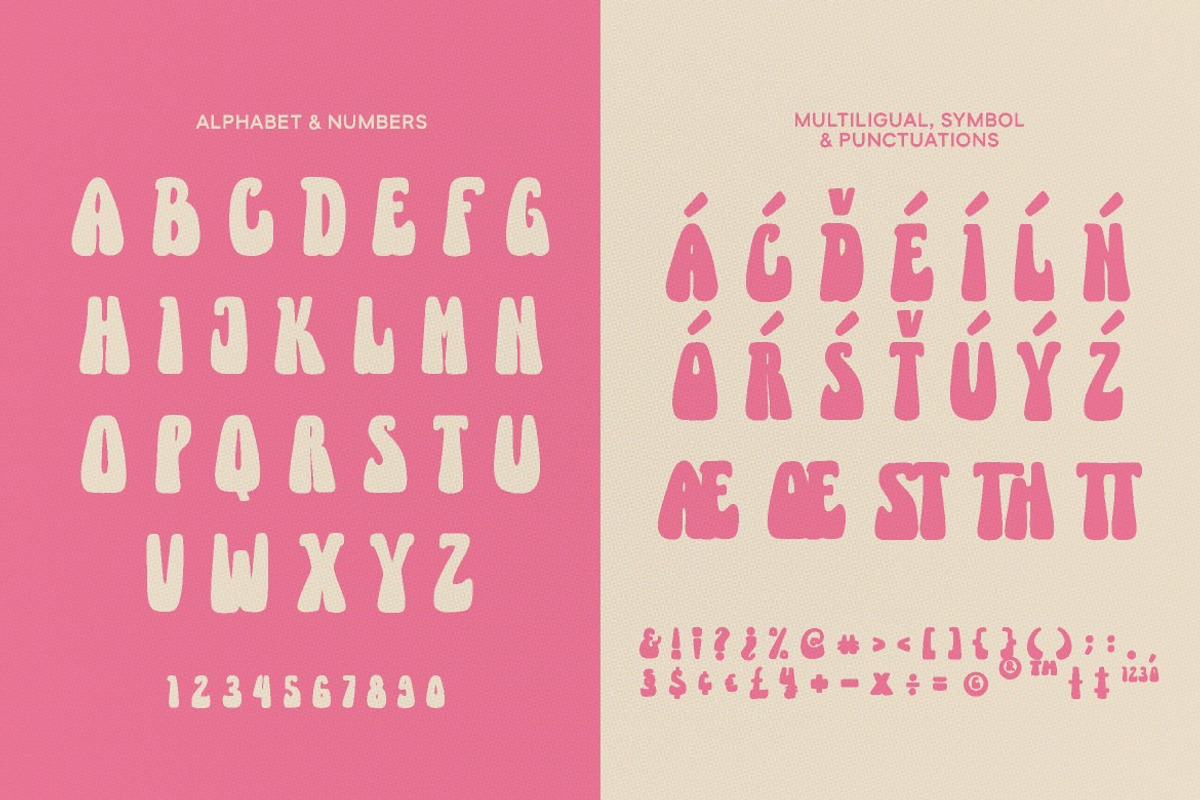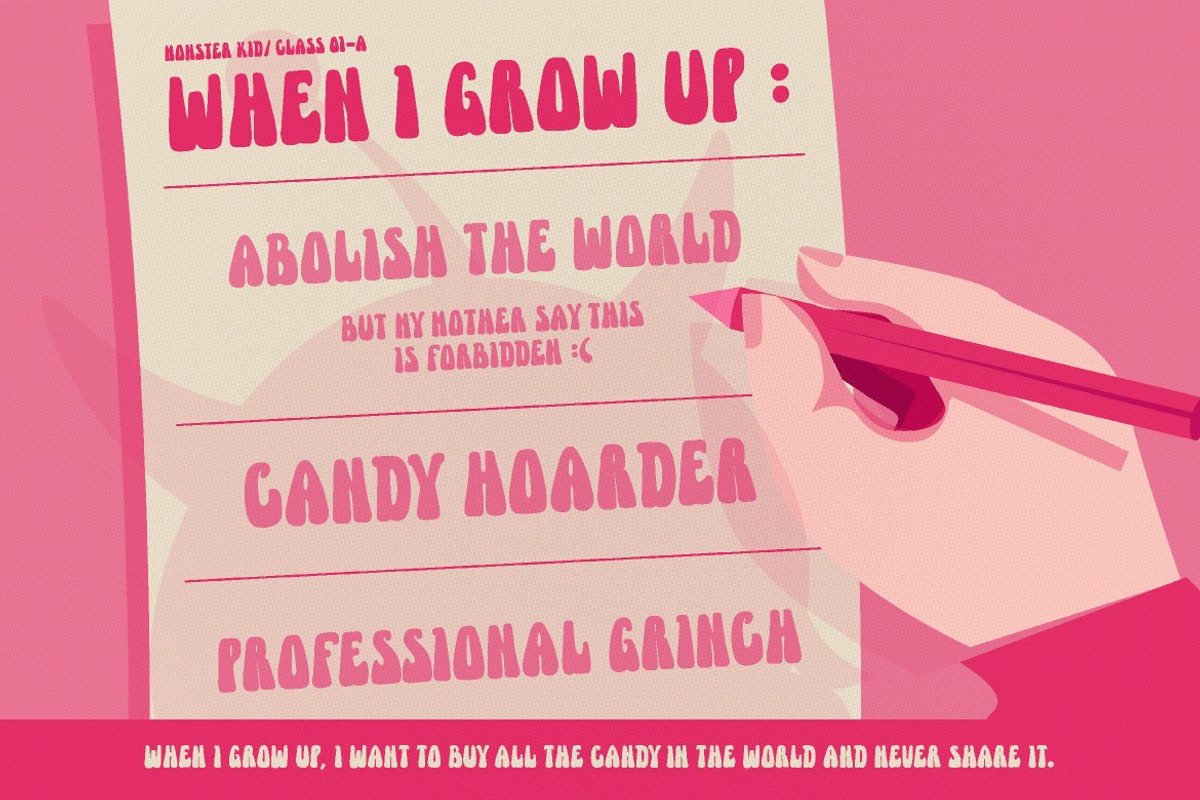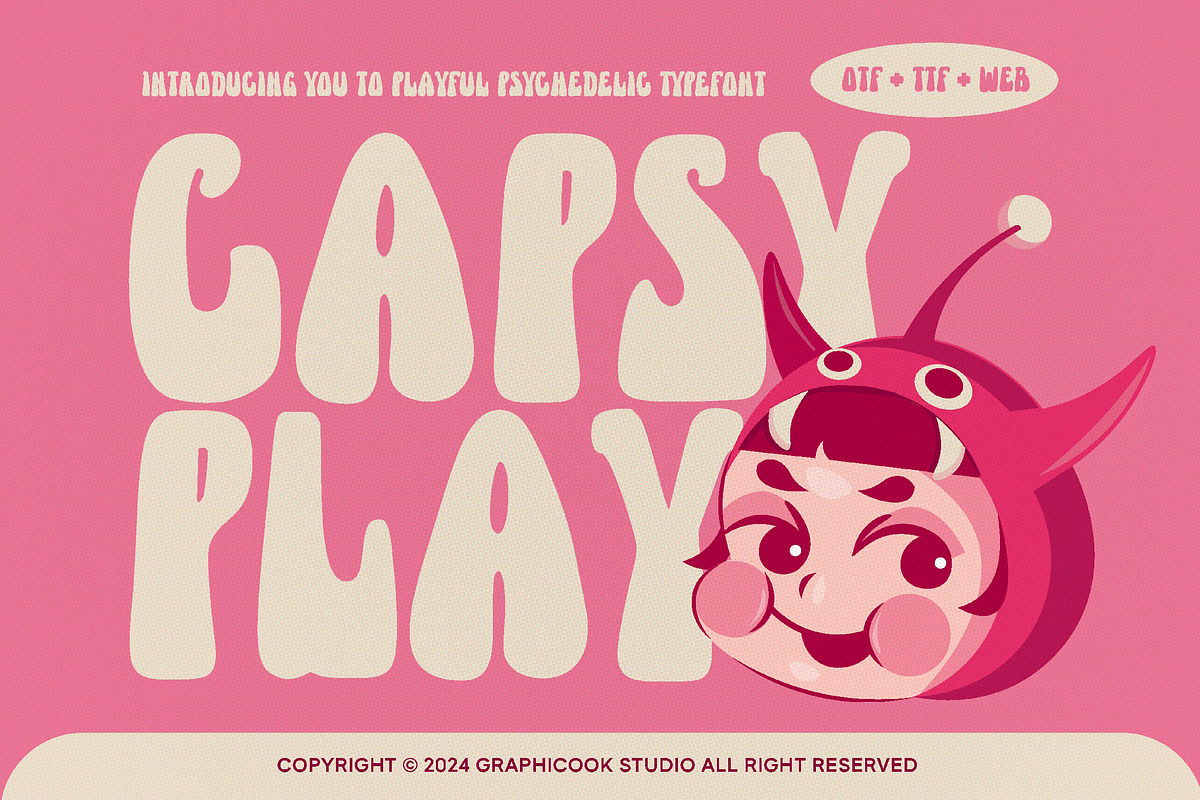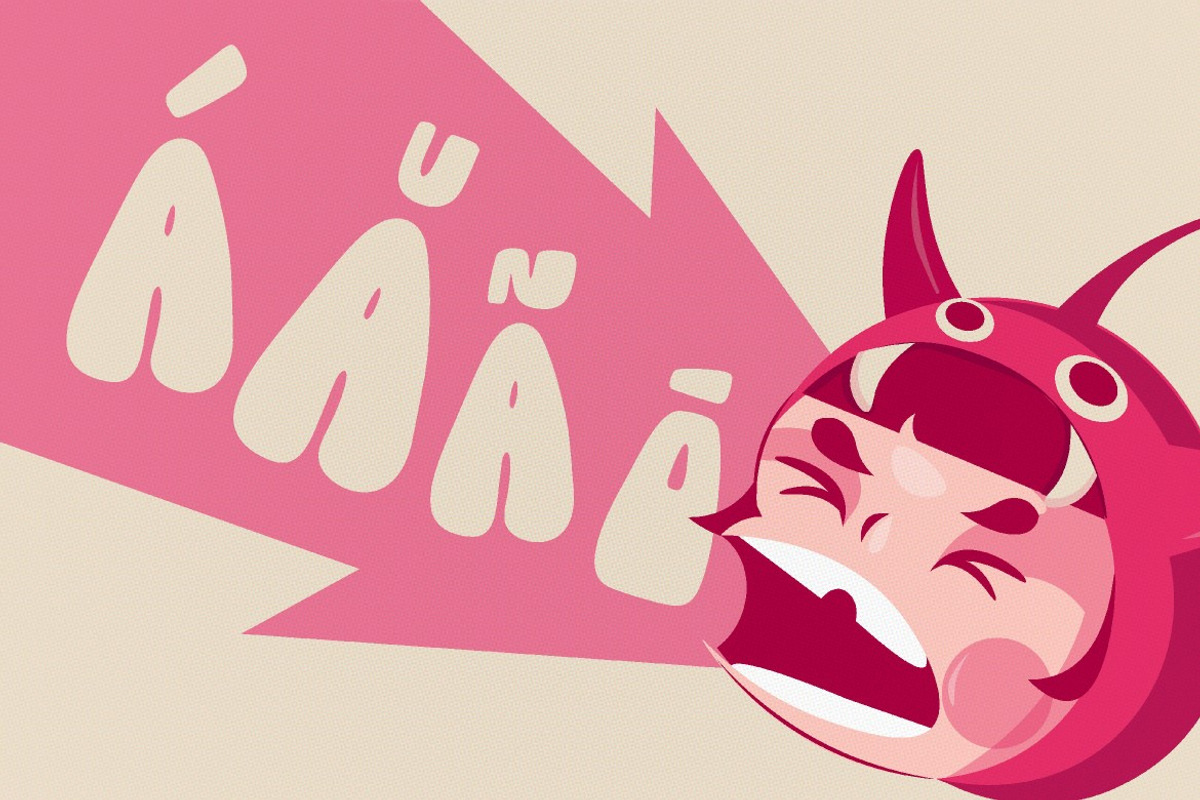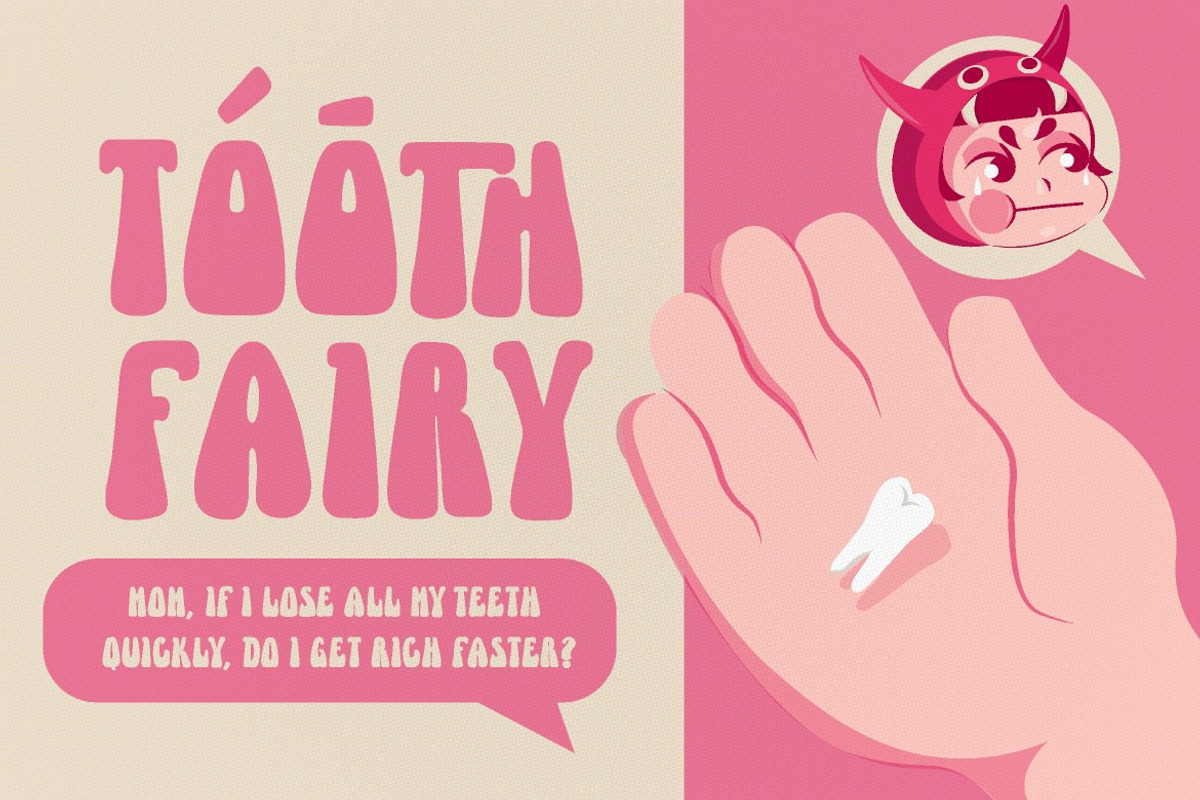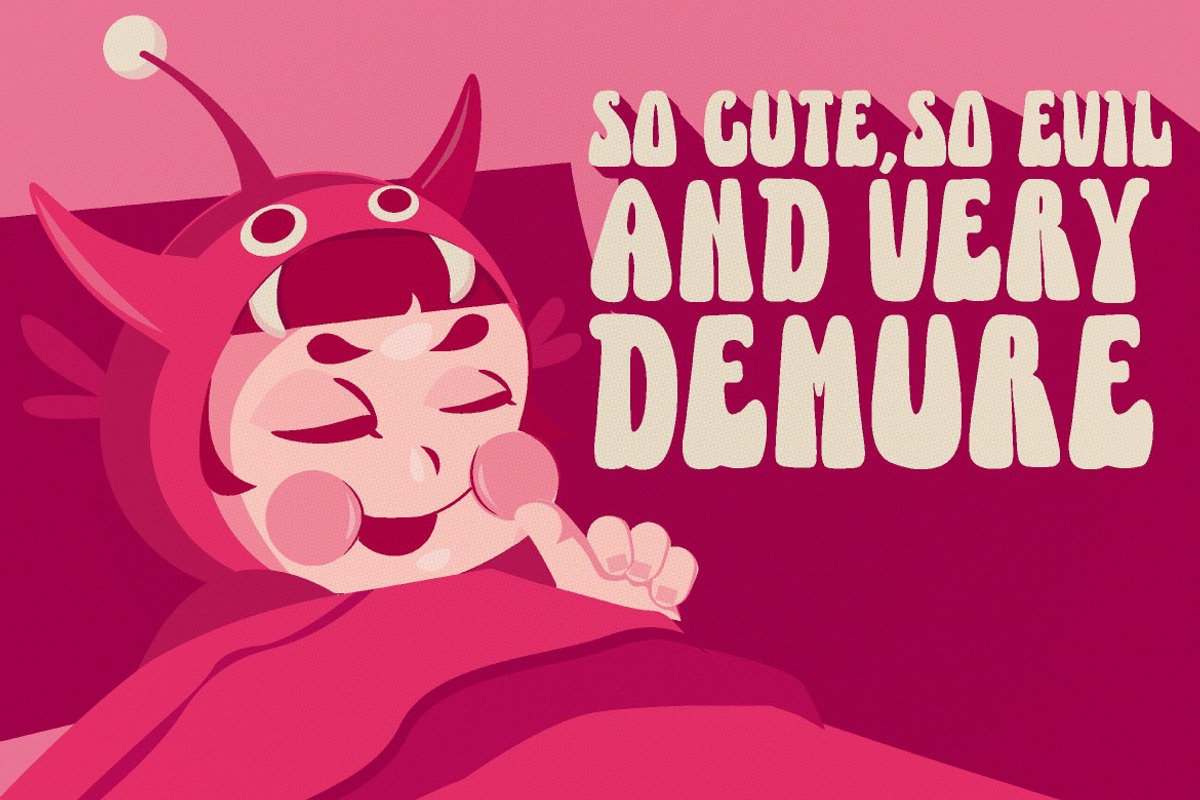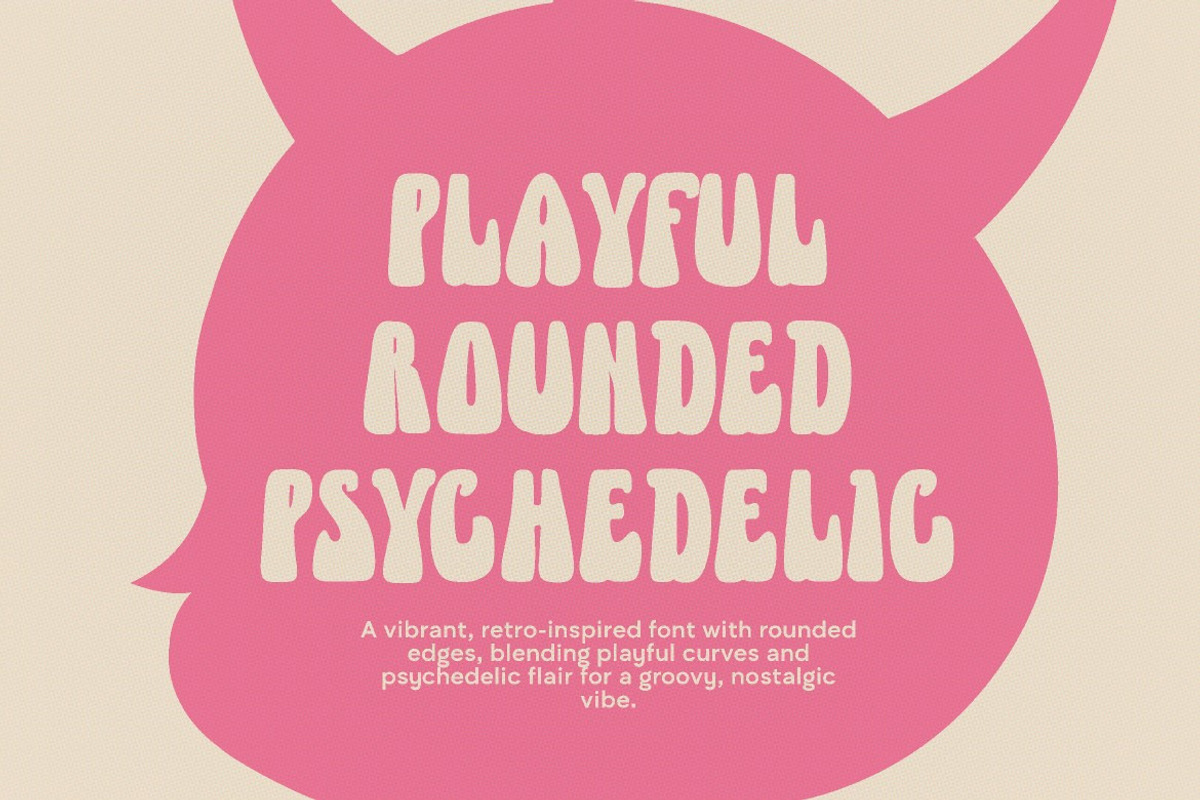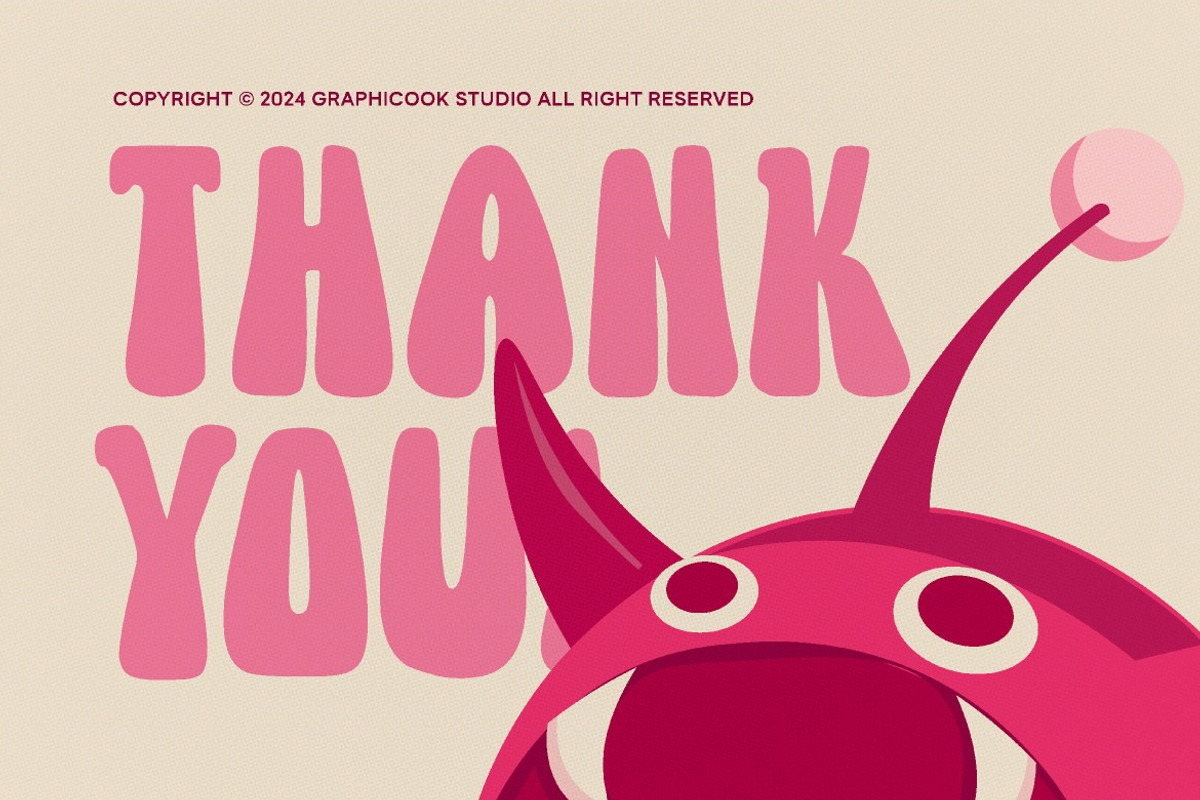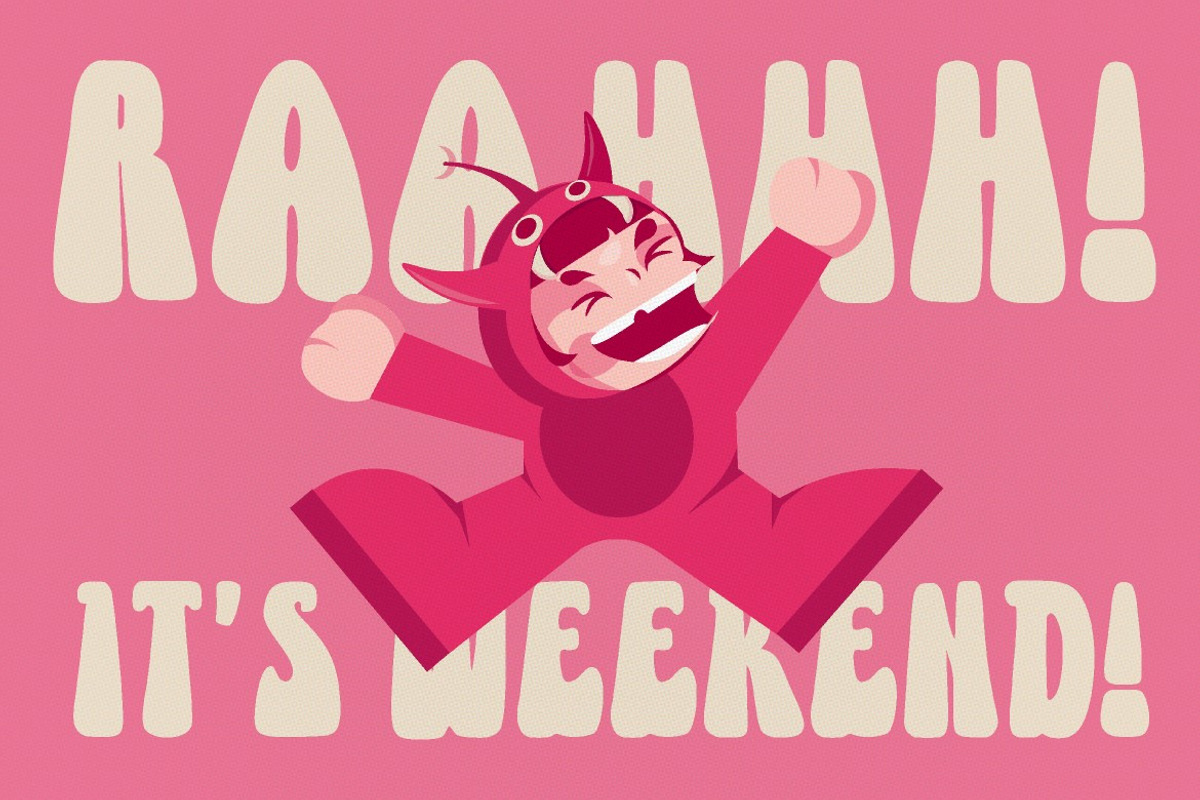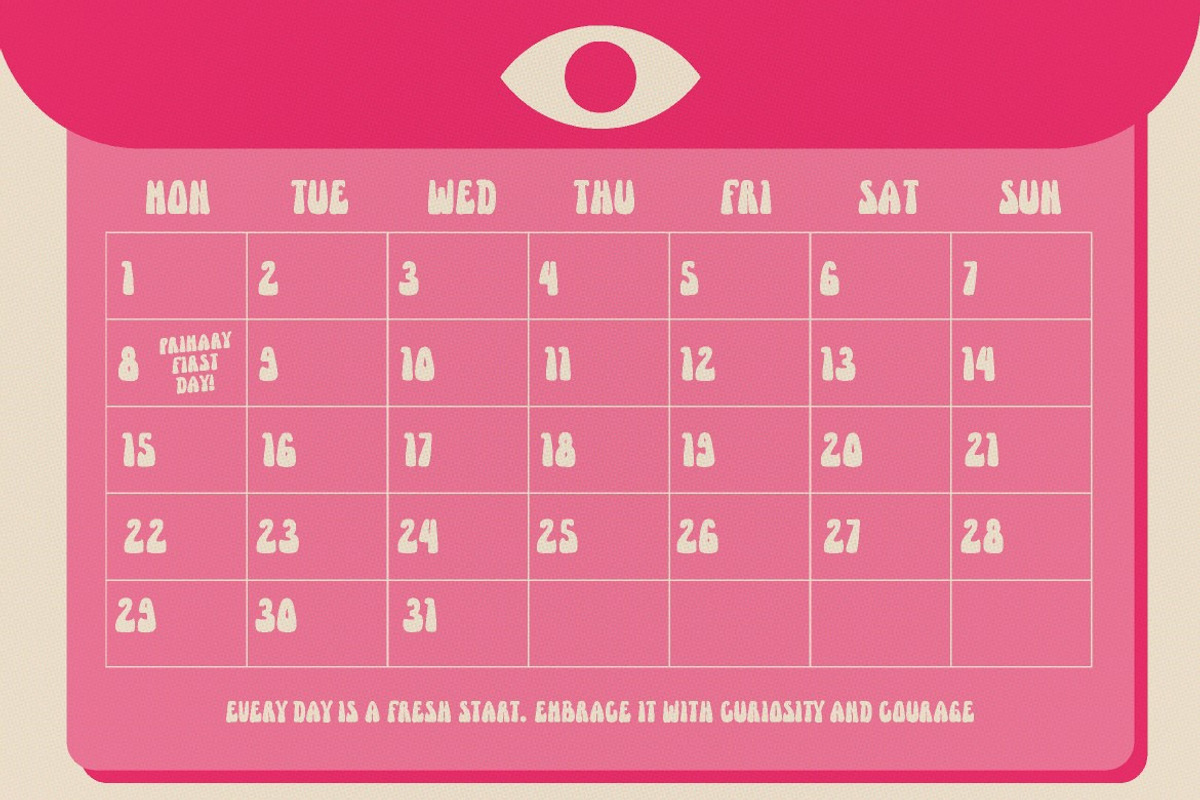
Capsyplay
Capsyplay got its inspiration from Psychedelic style. The font has unique letter shapes, so it's suitable for those that want to create playful designs.
Seryfold is perfect for headlines, logotypes, magazines, packaging, quotes, movies, games, cover albums, book covers, and flyers, it's a perfect solution for creating eye-catching designs that stand out in any context.